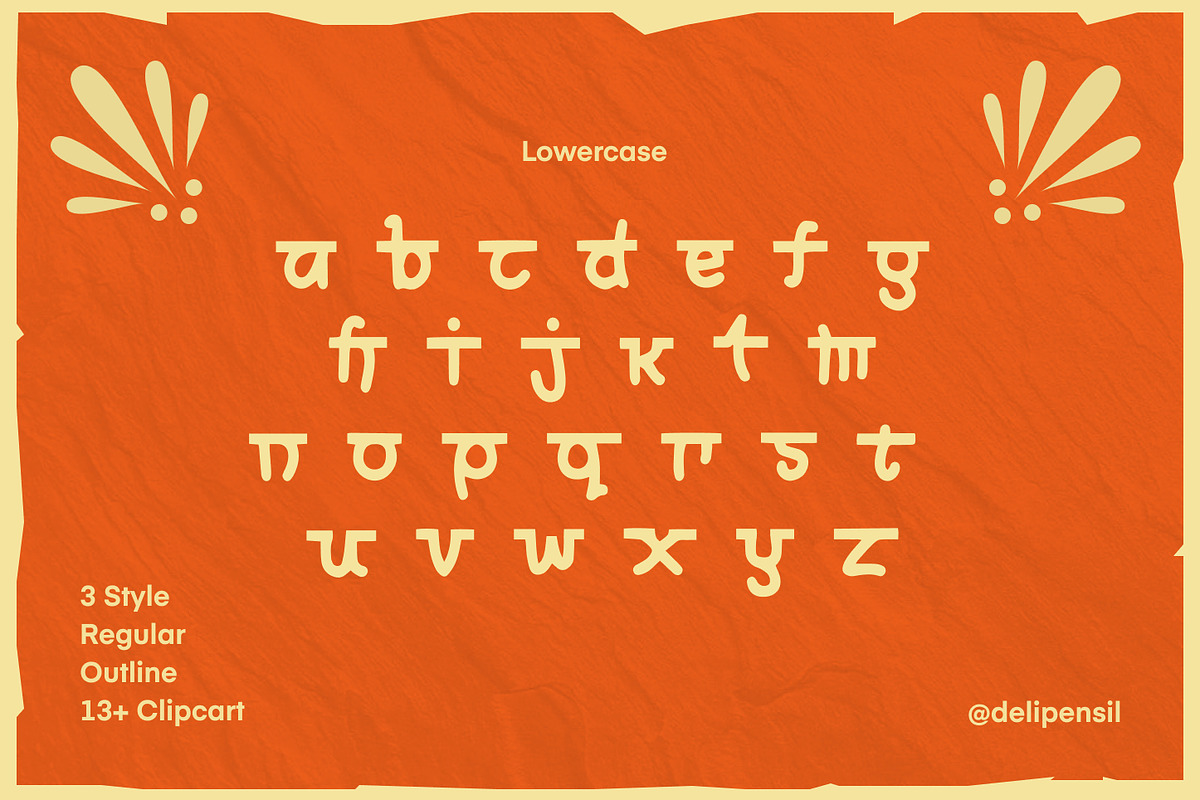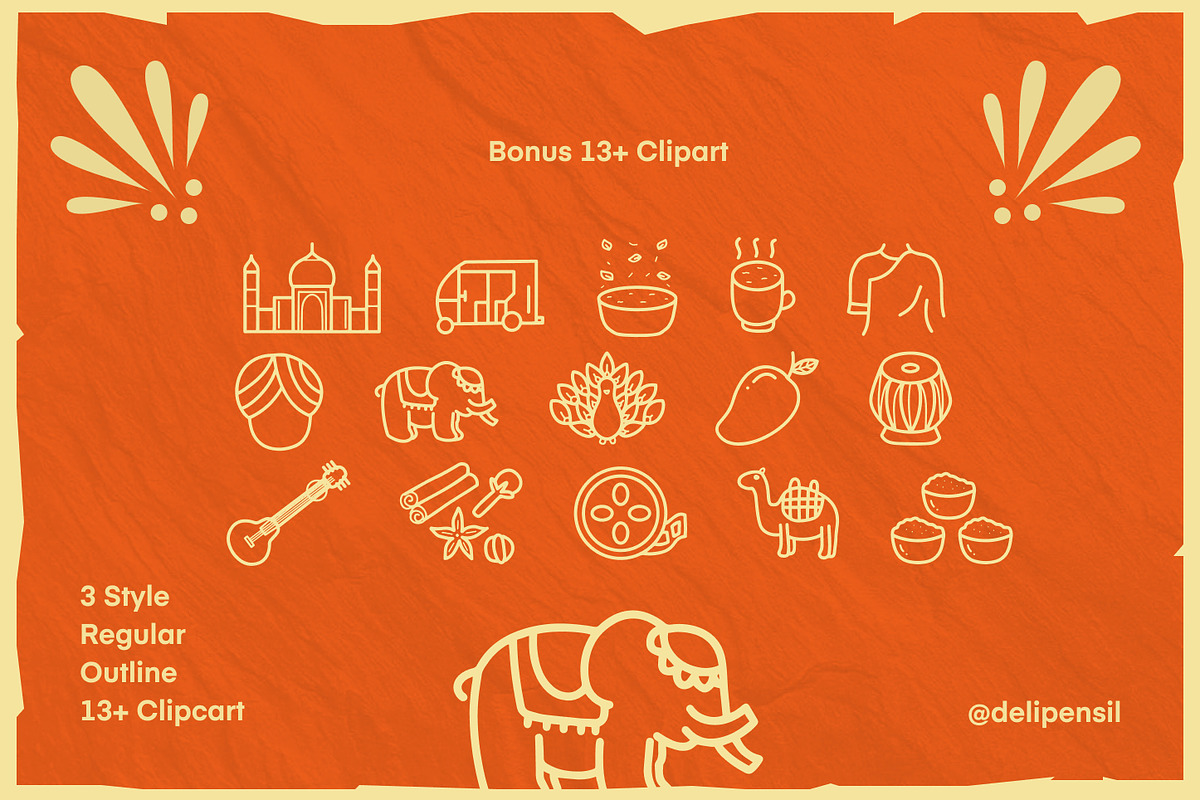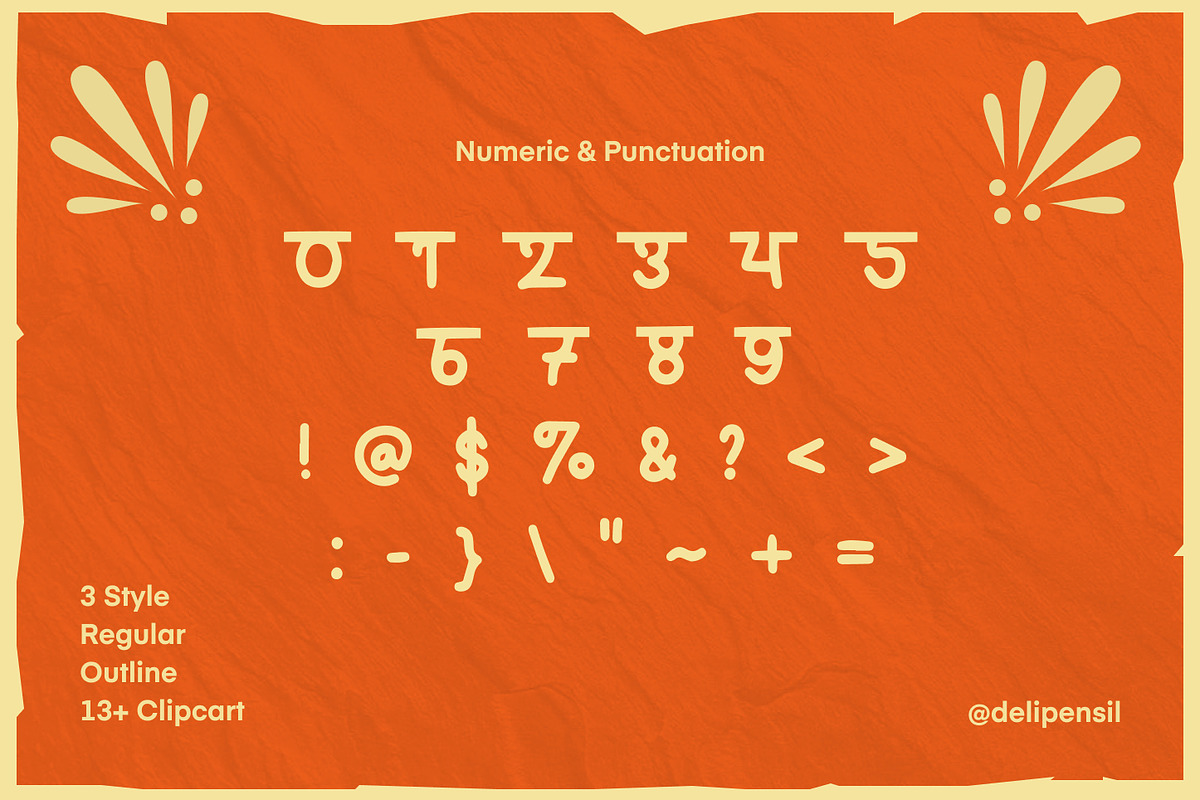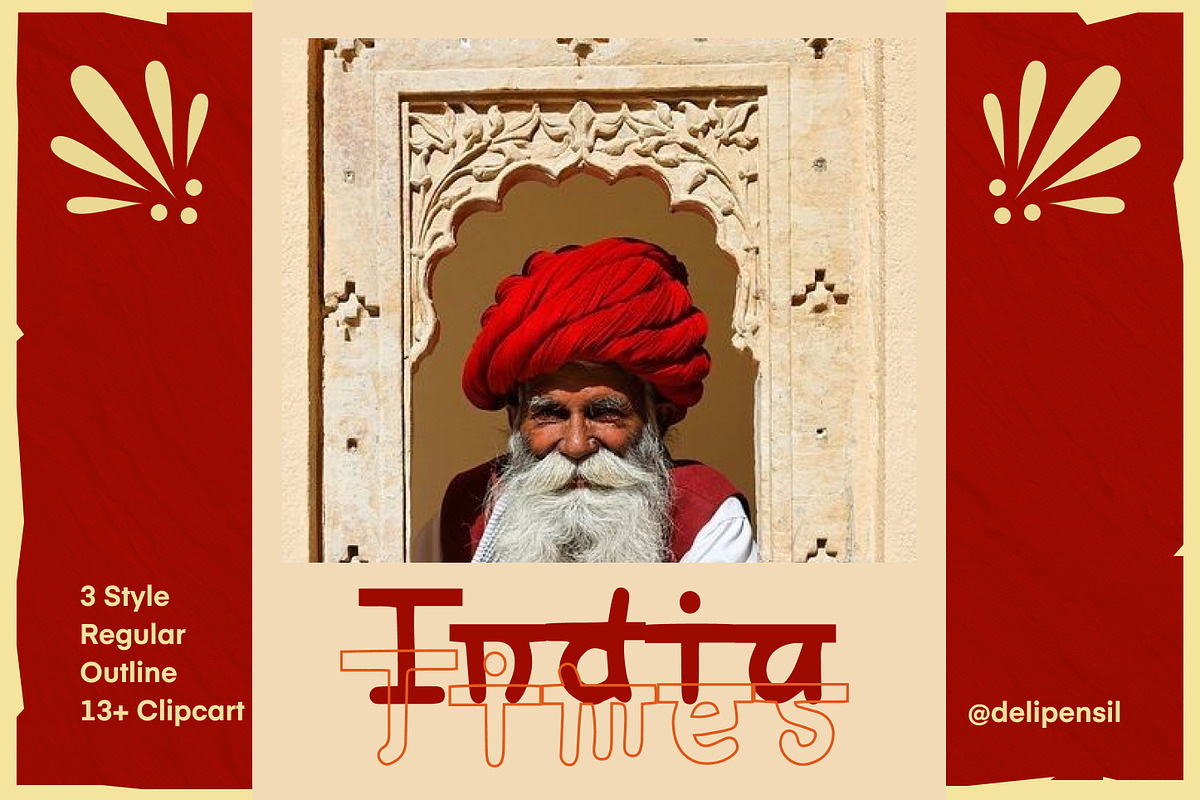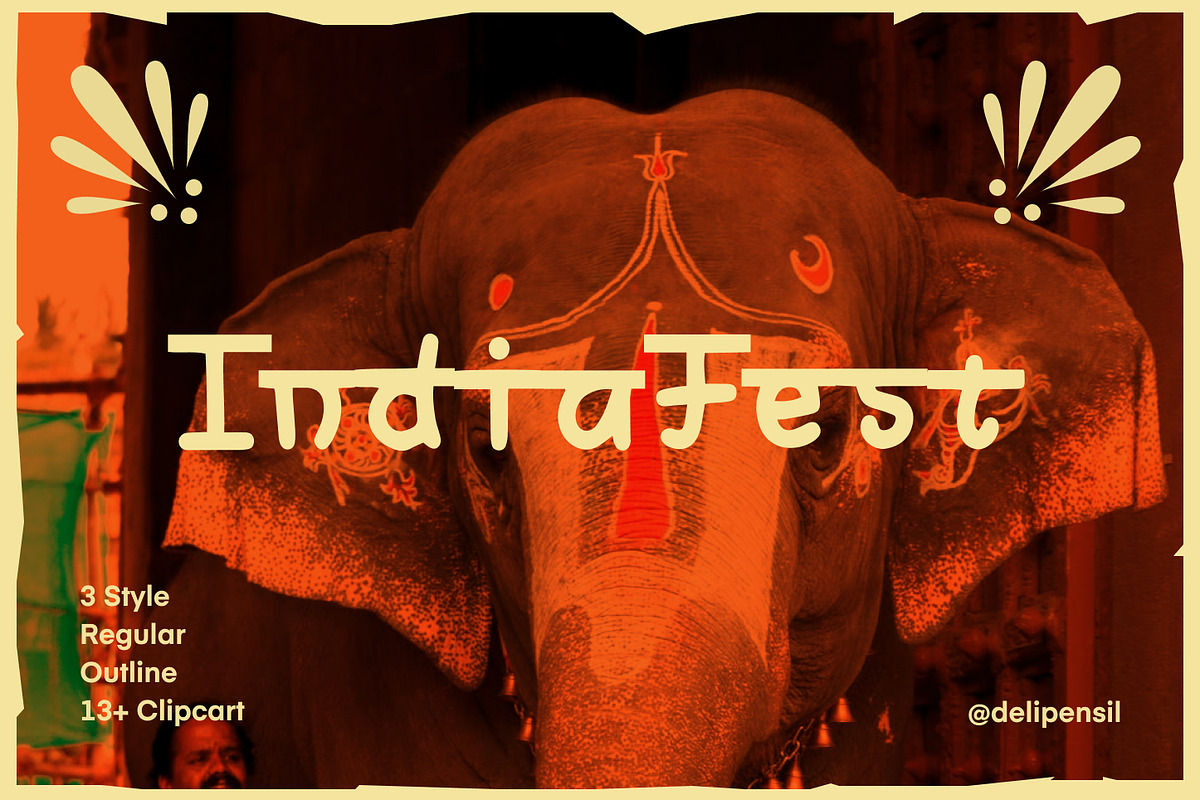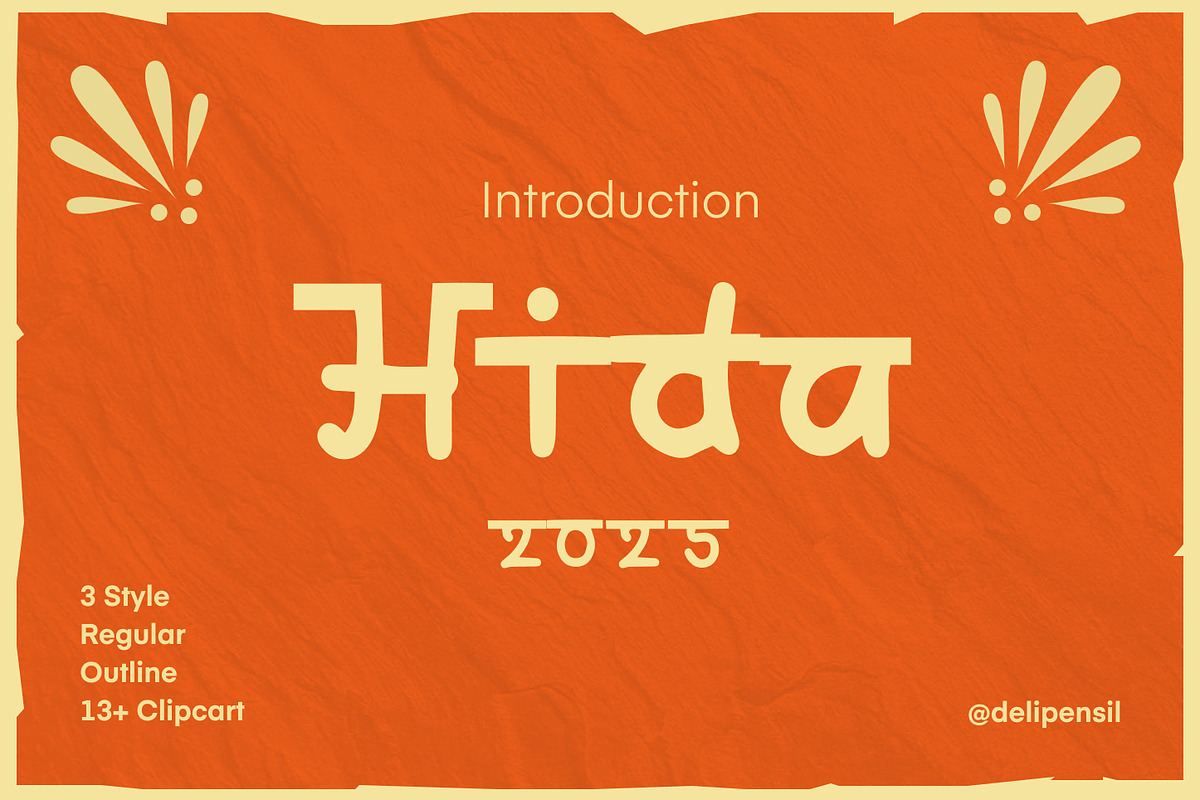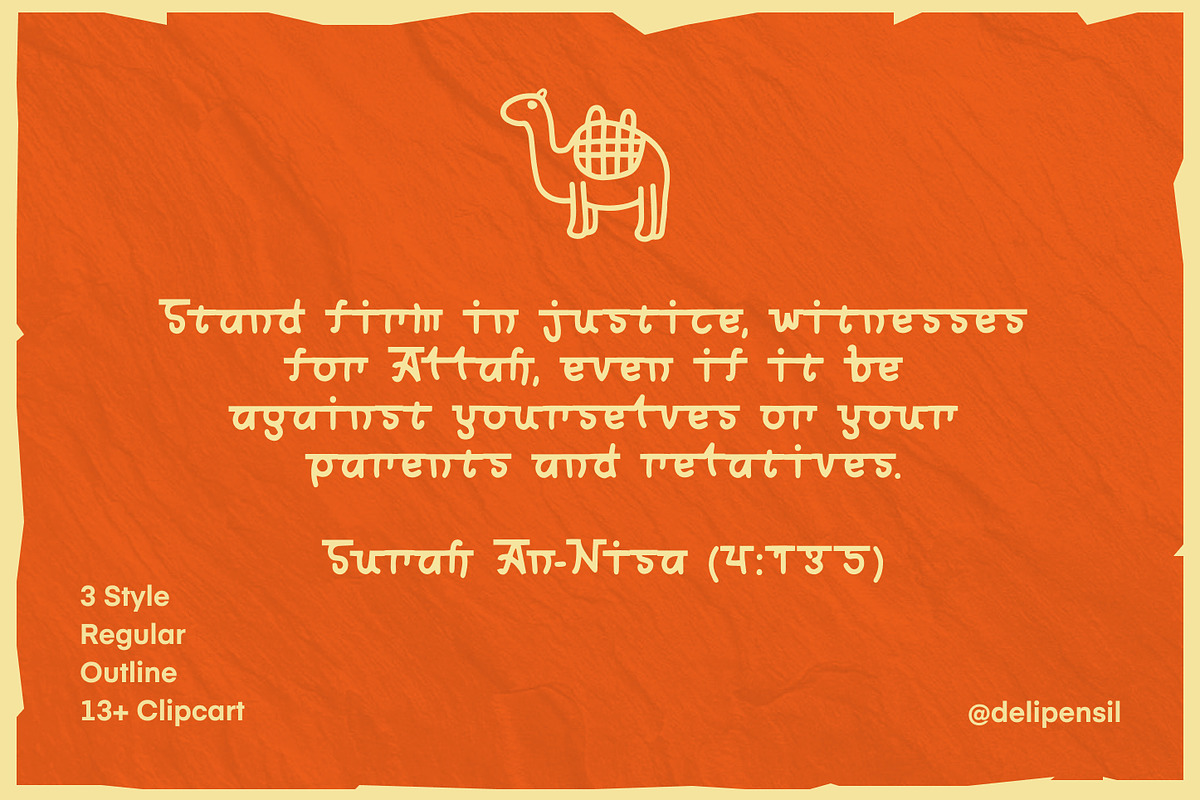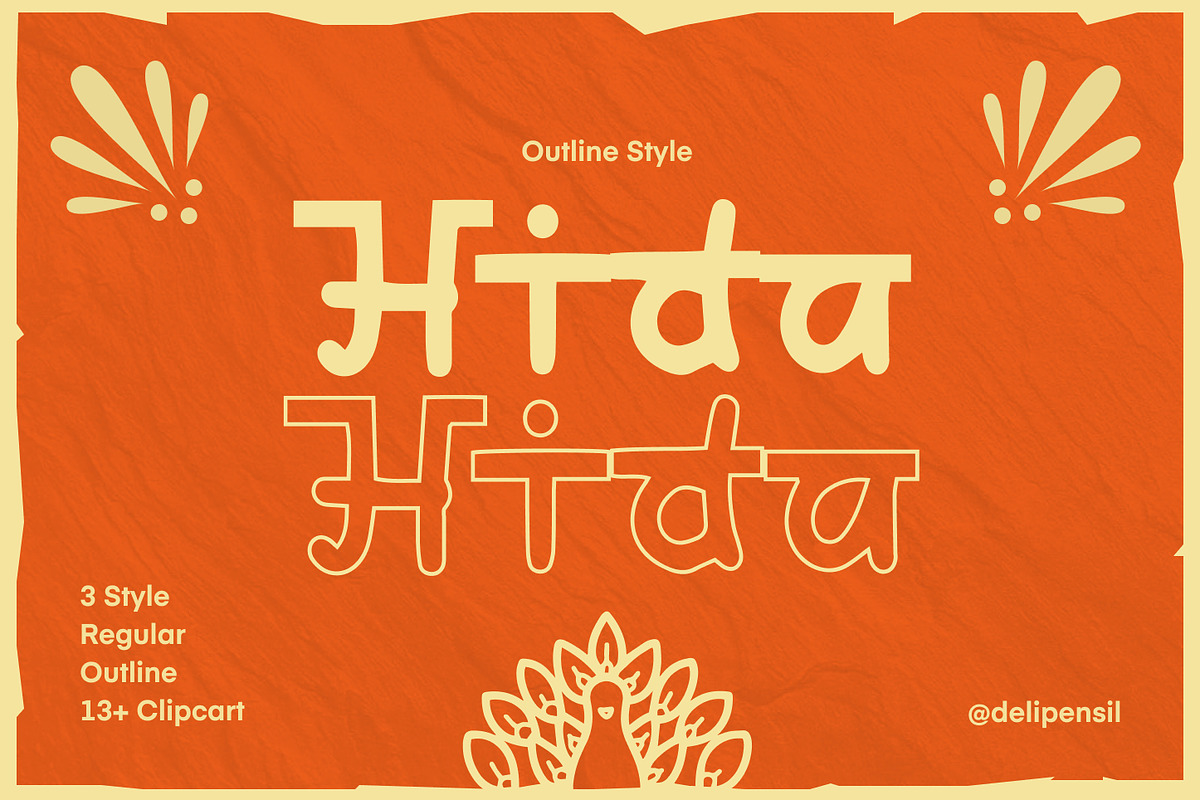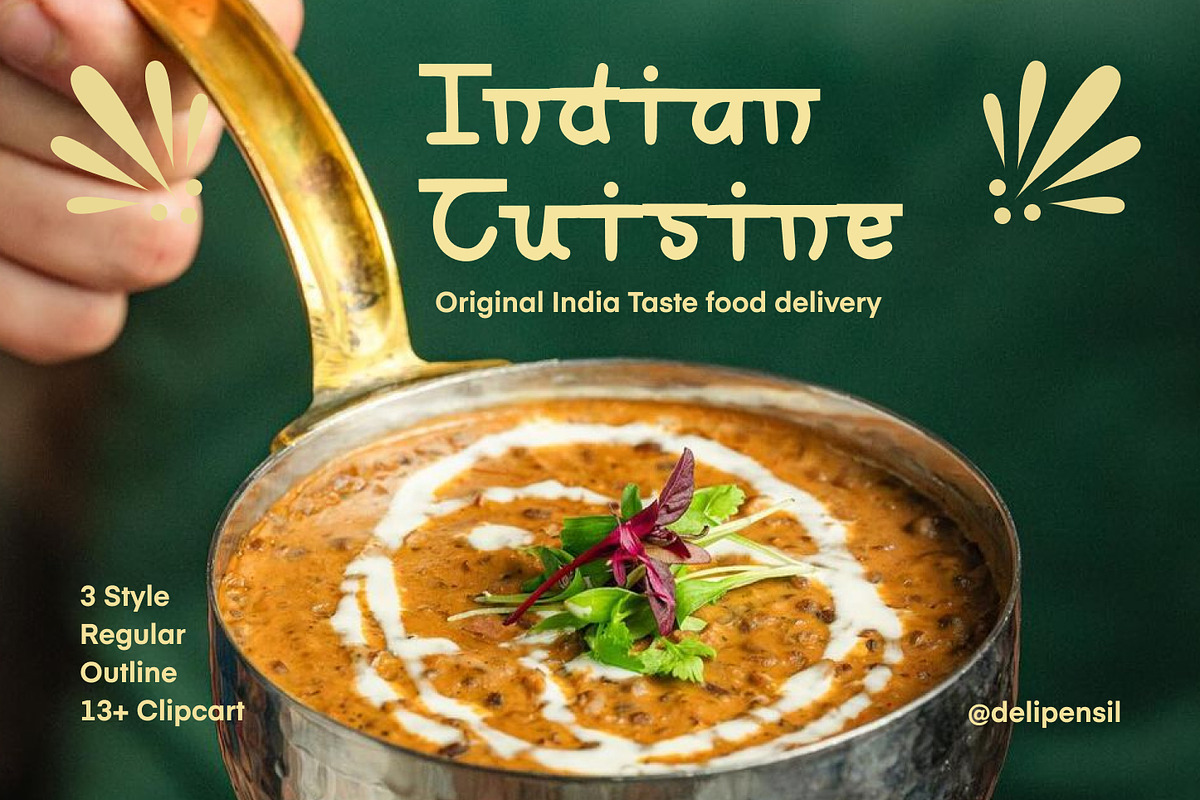
Hida - Hindi Cute Typeface
Bismillah Introduction : ✨ Hida – Playful Hindi-Style Font + Bonus Cliparts
Description: Bring a touch of culture and creativity to your designs with Hida, a unique Hindi-inspired font! Perfect for branding, posters, invitations, packaging, and social media graphics, Hida gives your work a playful yet authentic vibe.
- Hida Regular – clean, perfect for headlines
- Hida Outline – stylish outlined version for modern, trendy looks